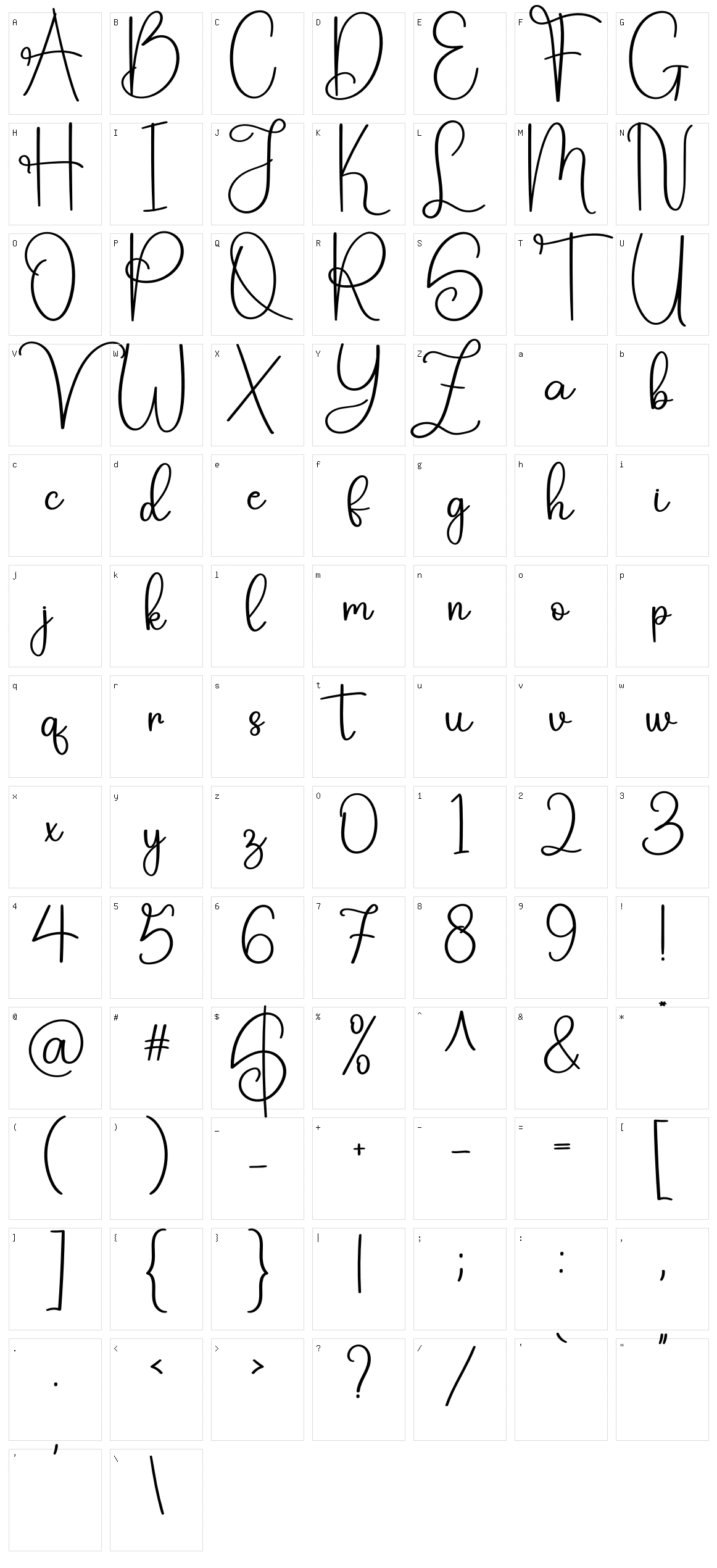
The free font Hello Daddy is carefully designed by Harlek Studio, showcasing a thoughtful balance of creativity and usability and falls under the Script font style. When you download the ZIP file, it contains only 80.55 KB of font files, making it lightweight and quick to download. Please review the license details below to understand permitted usage and distribution rights. If license information is not available, we recommend using this font for personal projects only or contacting the author directly for commercial usage permissions.